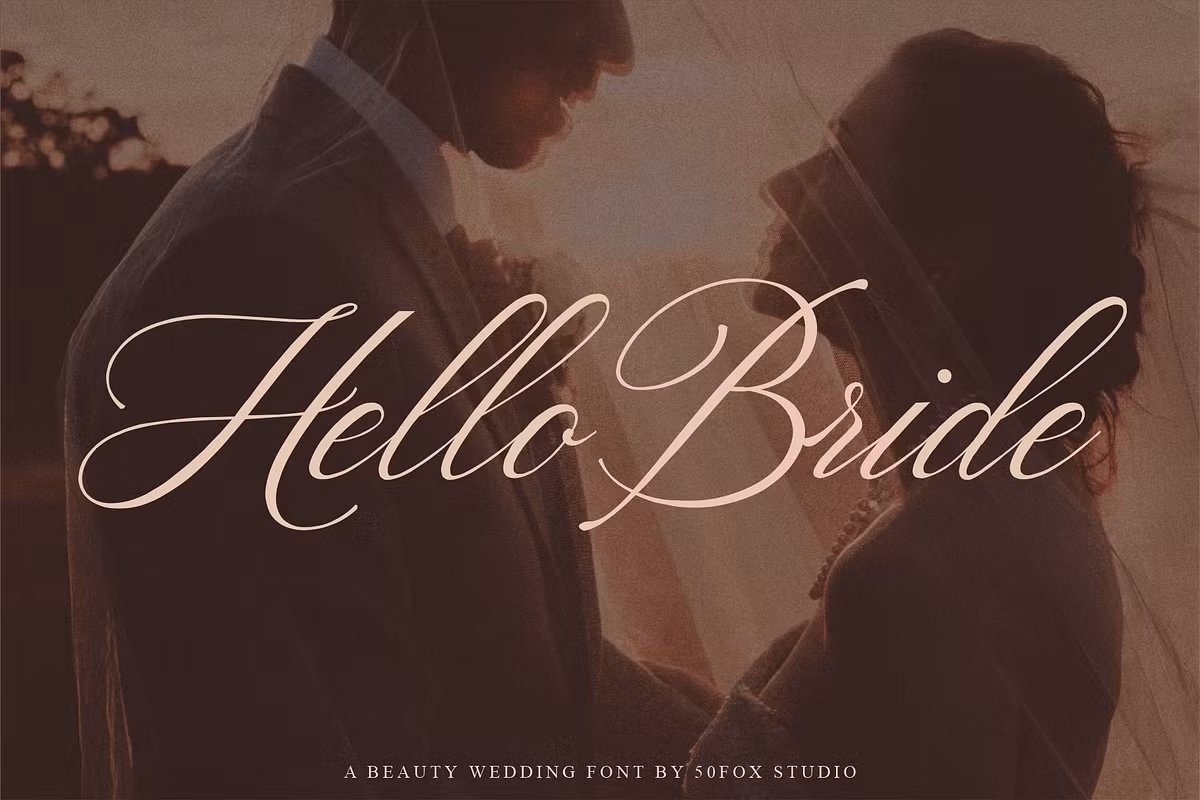
Hello Bride Fonts | Wedding Fonts Free Download
Hello Bride Fonts | Wedding Fonts Free Download is a beautiful and elegant font collection designed specifically for weddings. This bundle includes a mix of script and serif fonts, perfect for wedding invitations, save-the-date cards, thank-you notes, and other wedding stationery. The fonts combine classic sophistication with a modern touch, giving your wedding designs a romantic and polished look.
With graceful letterforms, smooth curves, and timeless appeal, Hello Bride Fonts | Wedding Fonts Free Download is ideal for any wedding-related project that needs a personal, chic, and stylish touch.